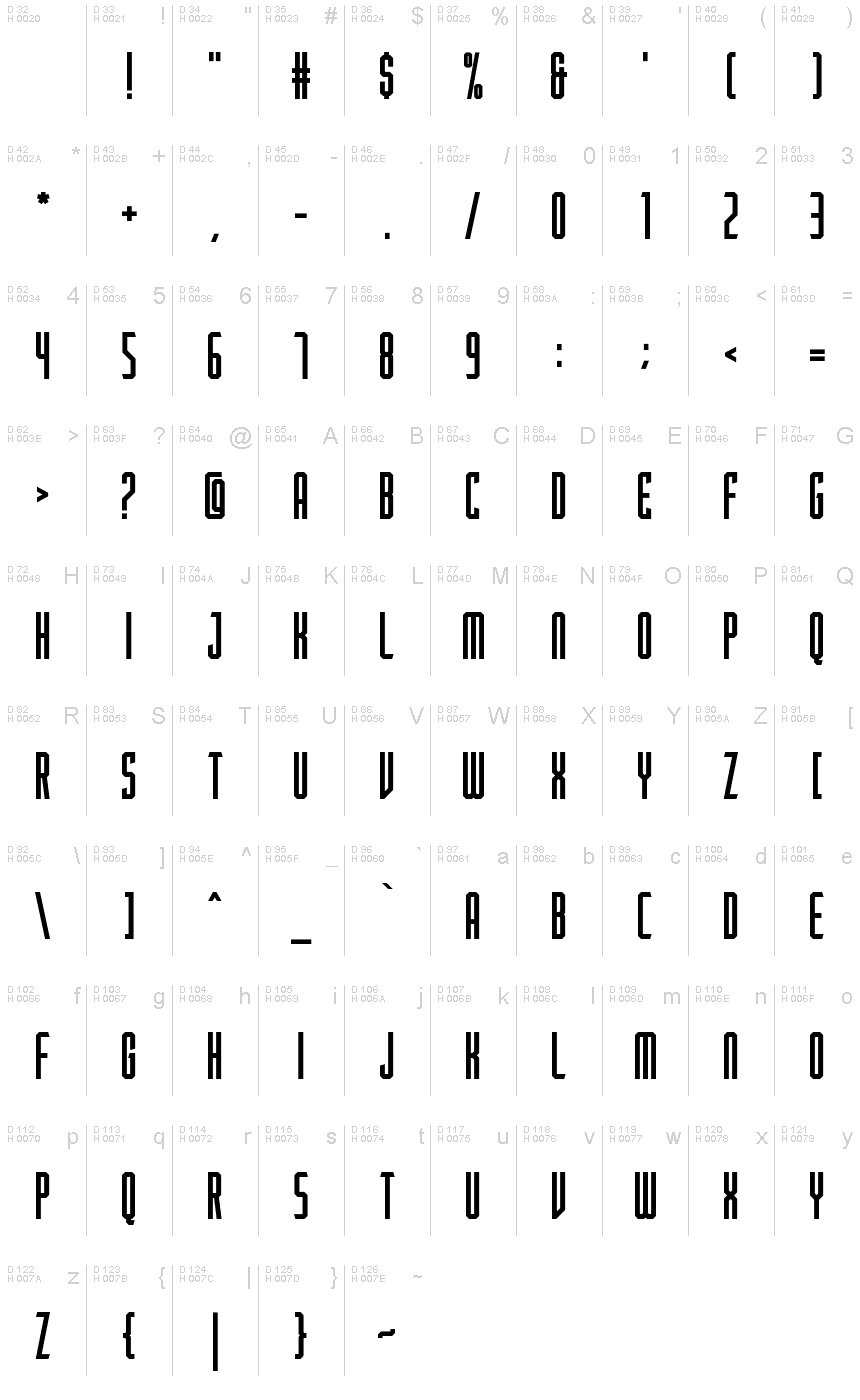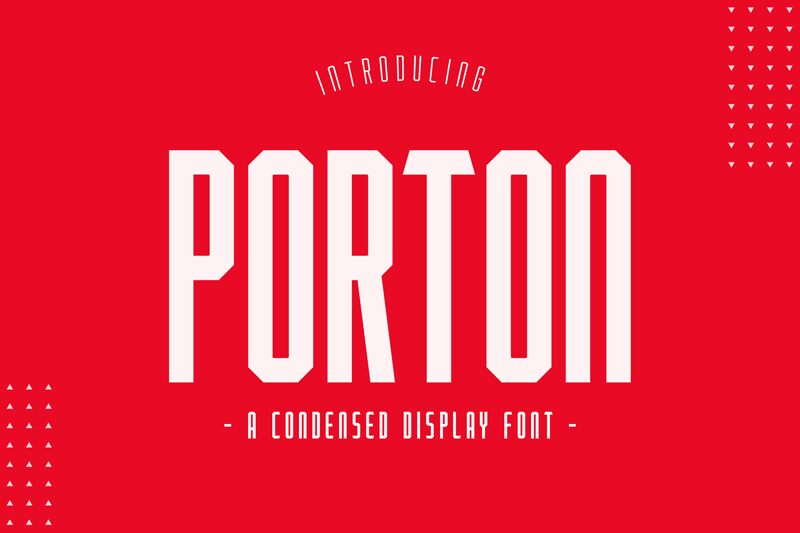
Porton Bold
Introduce my new font called Porton. Porton is a condensed font that is made for various purposes such as logos, posters, prints, product labels, typographic websites and other display needs.
Font Styles :
Porton Regular
Porton Bold
Porton Outline
Porton Italic